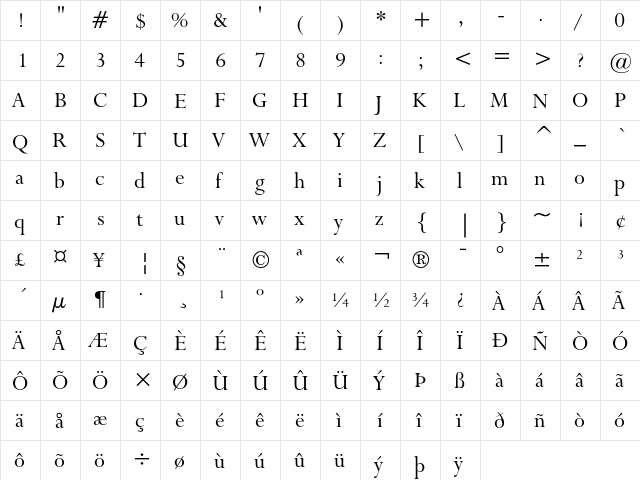
Lapidary 333 Regular Font Preview
Lapidary 333 Regular
Design Context for Lapidary 333 Typeface
Lapidary 333 offers clean, dependable letterforms without strong stylistic allegiance, making it a practical choice for designers who need flexibility.